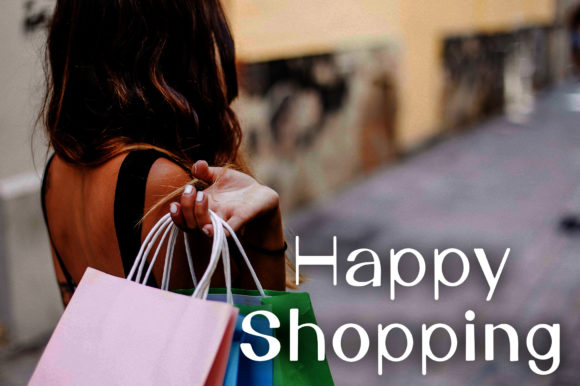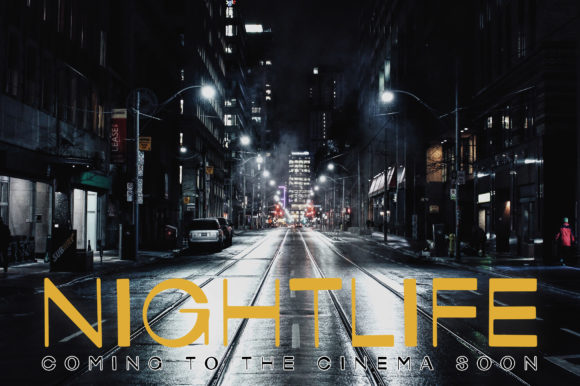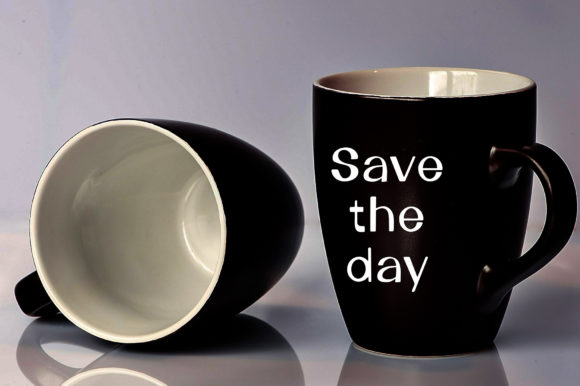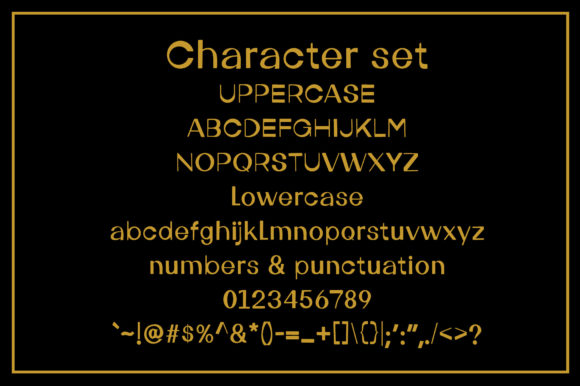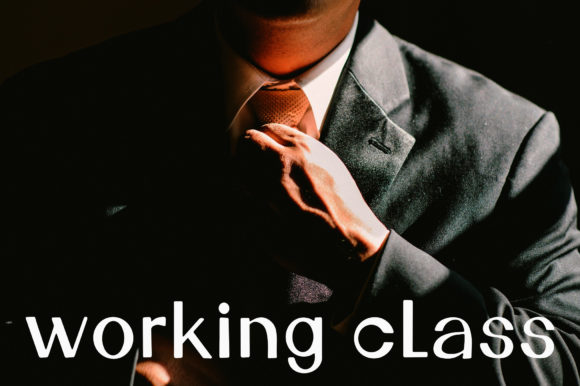
Grock Font: Elevate Your Designs with a Modern Display Font
In the world of typography, a good font can make all the difference in creating visually stunning designs. For designers and crafters looking for a modern and sleek typeface, Grock Font is an excellent choice. This beautifully crafted display font is designed with care and attention to detail, making it perfect for adding a touch of elegance to any project.
What Makes Grock Font Stand Out?
Grock Font boasts nicely curved characters that exude a sense of sophistication and style. Its sleek design makes it an ideal choice for creating eye-catching headings, titles, and captions that are sure to grab attention. Whether you’re working on a branding project, a website, or a craft project, Grock Font is versatile enough to complement any design aesthetic.
Key Features of Grock Font
- Modern Design: Grock Font features a contemporary design that is perfect for creating modern and trendy designs.
- Nicely Curved Characters: The font’s curved characters add a touch of elegance and sophistication to any design.
- Sleek Style: Grock Font’s sleek style makes it perfect for creating headings, titles, and captions that are sure to stand out.
- Versatility: This display font is suitable for a wide range of design projects, from branding and advertising to crafting and DIY projects.
Why Choose Grock Font?
There are many reasons why designers and crafters choose Grock Font for their projects. Here are a few:
- Ease of Use: Grock Font is easy to use and can be easily integrated into any design project.
- High-Quality Design: The font is designed with high-quality and precision, ensuring that it looks great in any design.
- Unique Style: Grock Font’s unique style sets it apart from other fonts, making it a great choice for designers looking to create something distinctive.
How to Use Grock Font in Your Designs
Using Grock Font in your designs is easy. Here are a few tips to get you started:
- Pair it with Other Fonts: Grock Font works well when paired with other fonts, creating a beautiful contrast that adds depth to your design.
- Experiment with Sizes: The font looks great in various sizes, from large headings to smaller captions.
- Play with Colors: Grock Font can be used in a variety of colors, from bold and bright to subtle and muted.
In conclusion, Grock Font is a modern display font that is perfect for designers and crafters looking to elevate their designs. With its nicely curved characters, sleek style, and versatility, this font is sure to become a staple in any designer’s toolkit. Whether you’re working on a branding project, a website, or a craft project, Grock Font is an excellent choice for adding a touch of elegance and sophistication.